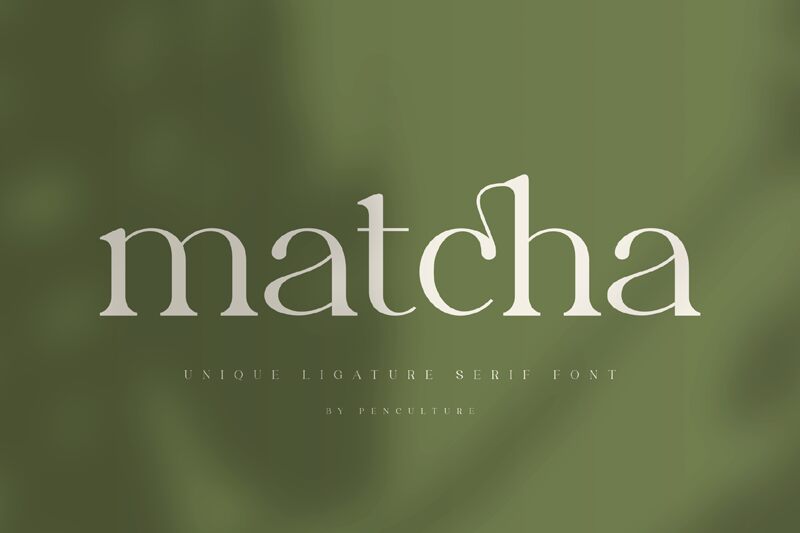
Matcha by Revo Farisky is a beautiful serif typeface that exudes elegance. This light font is perfect for adding a touch of sophistication to any project, from wedding invitations to magazine covers. The clean lines and subtle curves of Matcha make it an ideal choice for creating logo designs, book covers, and signage. It's also great for eye-catching headlines and captivating titles. Let Matcha bring your projects to life!
Designed by Revo Farisky from Pen Culture in 2021